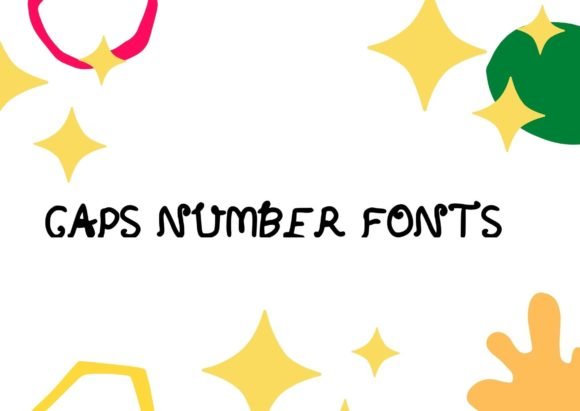
Introduction to Caps Number Font
Caps Number is a cute and simple lettered handwritten font that can be used for all chalkboard quotes or teaching material.
Its authentic look will add a personal and realistic feel to your designs .
Key Features of Caps Number Font
Why Choose Caps Number Font?